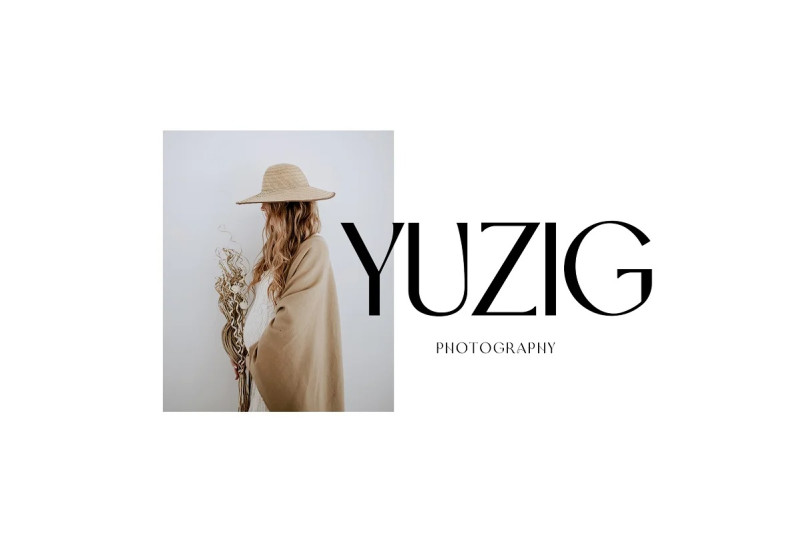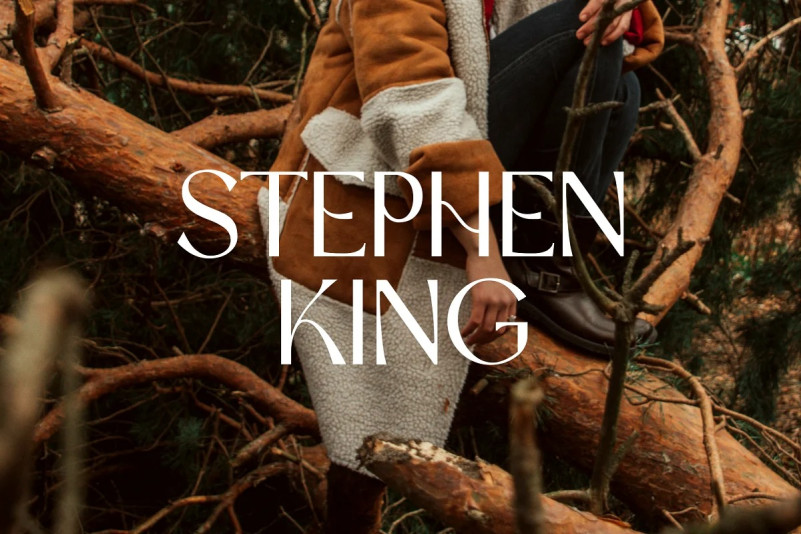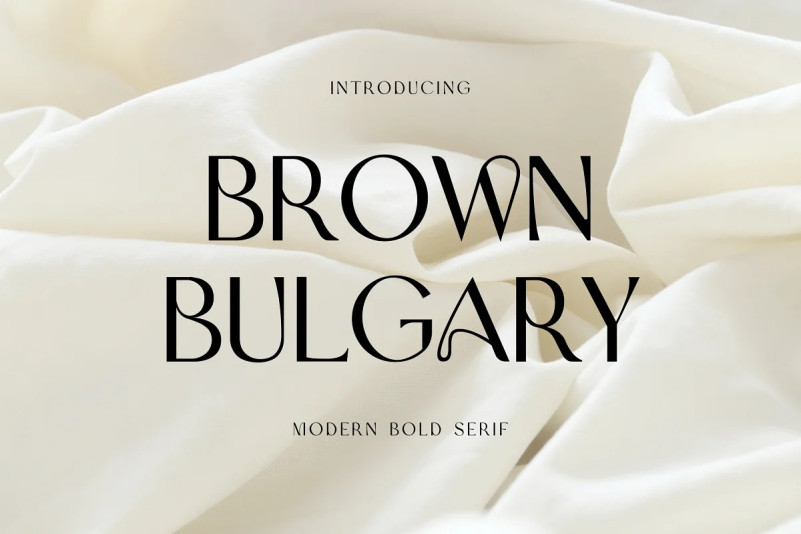
Brown Bulgary Font
Brown Bulgary Font – Modern Serif font that feels beautiful classy, elegant, and modern. You can use it as a logo, badge, insignia, packaging, headline, poster, t-shirt/apparel, greeting card, and wedding invitation.